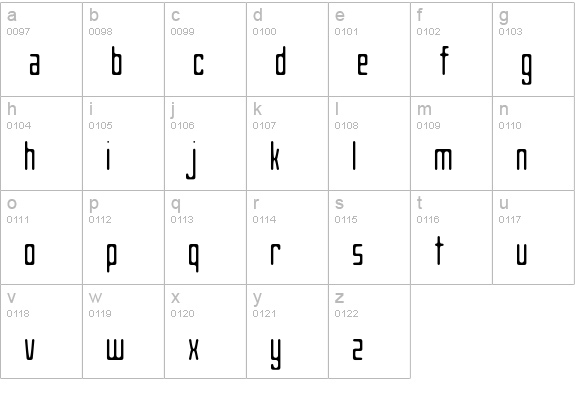
Gangly Font Details
Gangly font is a handcrafted typeface that exudes a unique blend of elegance and quirkiness. Its tall and slender letterforms make it stand out from the crowd, giving any design a touch of sophistication and personality. With its delicate curves and graceful strokes, Gangly font captures attention and leaves a lasting impression. This font is perfect for a wide range of projects, from branding and logo design to packaging and editorial layouts. Its versatility allows it to suit both modern and vintage-inspired designs, adding a touch of charm and character to any composition. But what sets Gangly font apart is that it is not only visually stunning, but also freely available to download at FontsMarket.com. Yes, you heard it right - this font is completely free! FontsMarket.com is a trusted source for high-quality fonts, and Gangly font is just one of the many gems you can find there. So why wait? Take advantage of this amazing opportunity and enhance your designs with the beauty and elegance of Gangly font. Download it today from FontsMarket.com and unleash your creativity like never before.